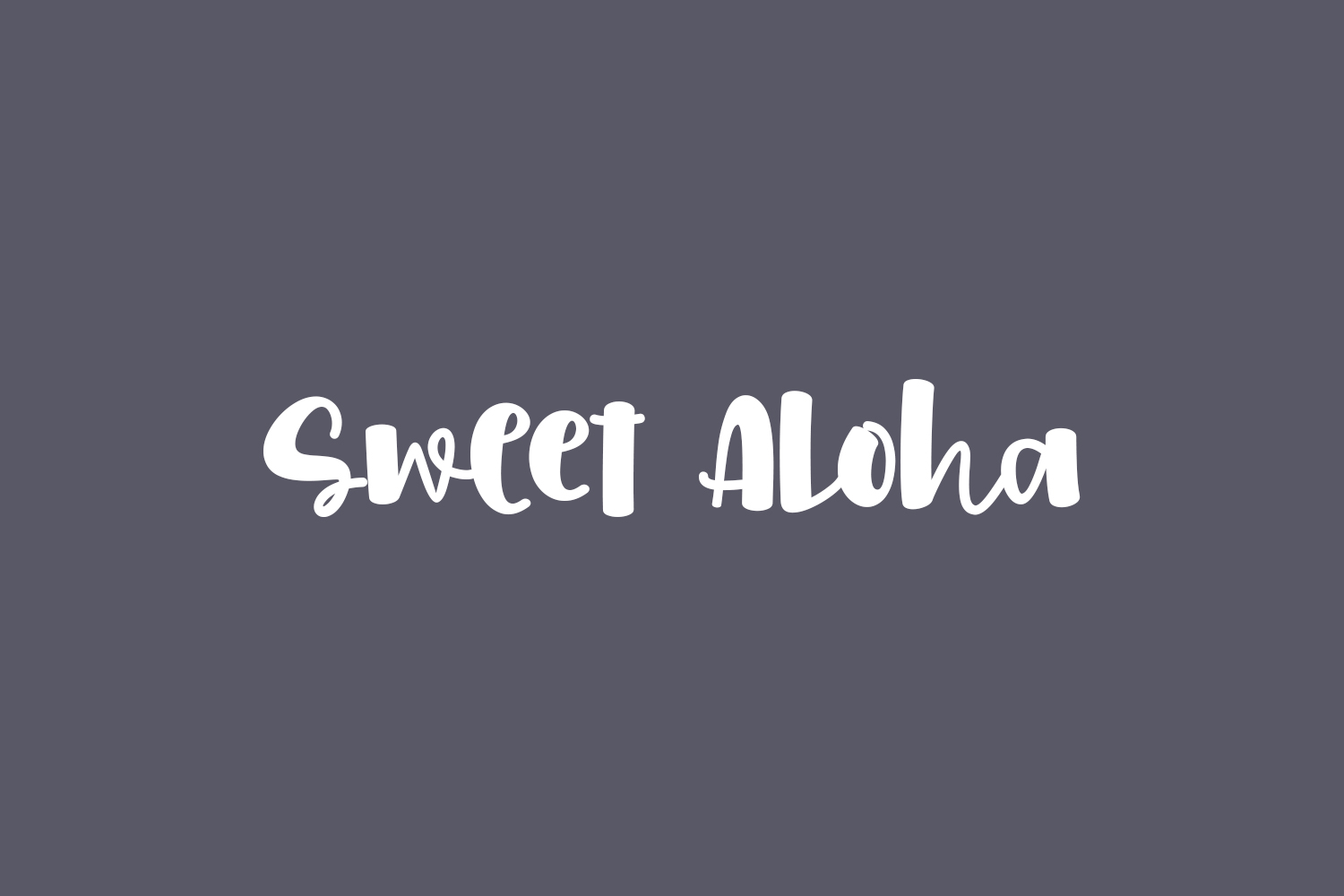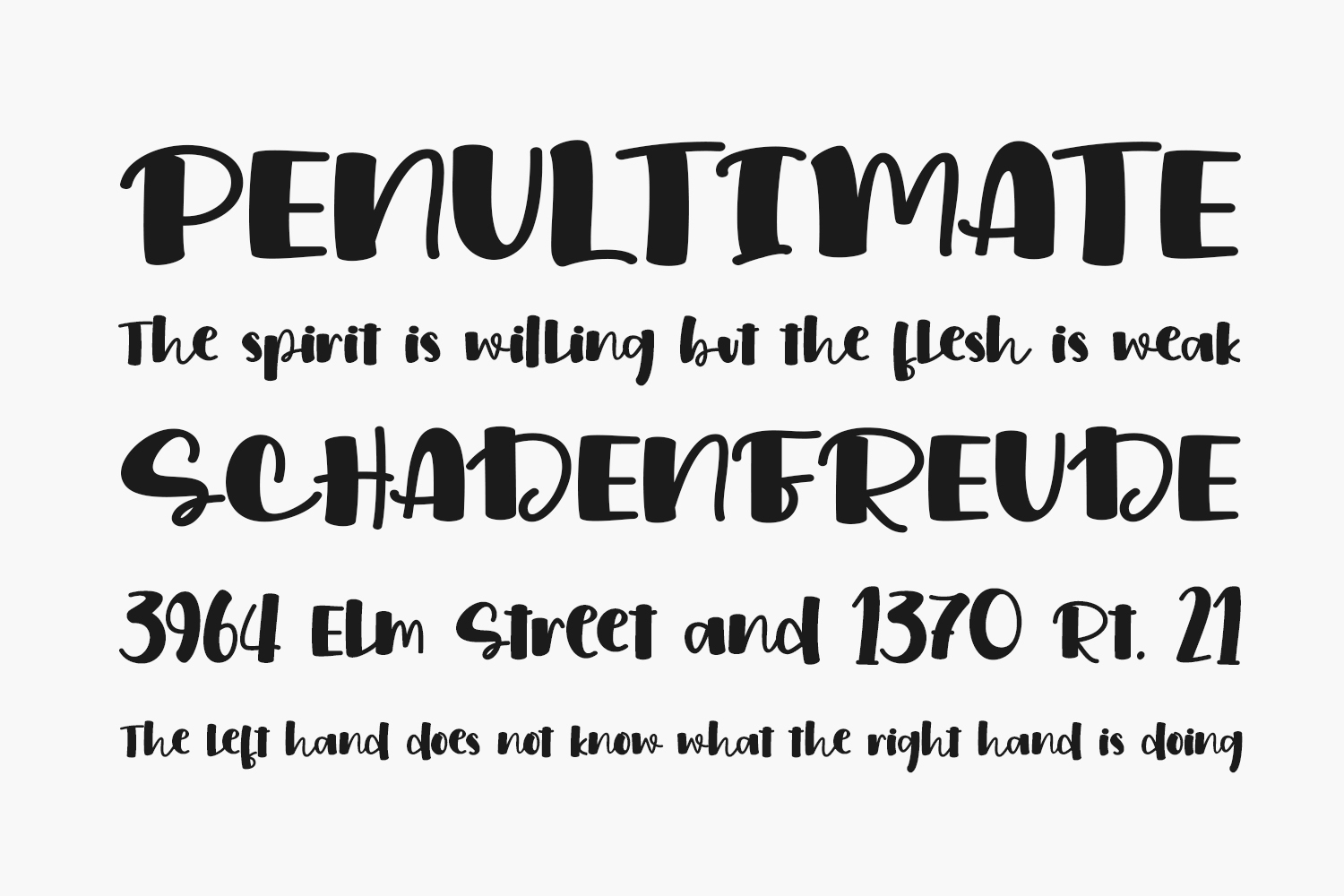
Sweet Aloha Free Font is a fun, quirky and uniquely shaped handwritten font. Whether you use it for cartoon-related designs, children’s games or just any creation that requires a lovely touch, this font will be an amazing choice. Sweet Aloha Free Font is free for personal use only. Please purchase the full version for commercial use.
Designed by Stefani Letter